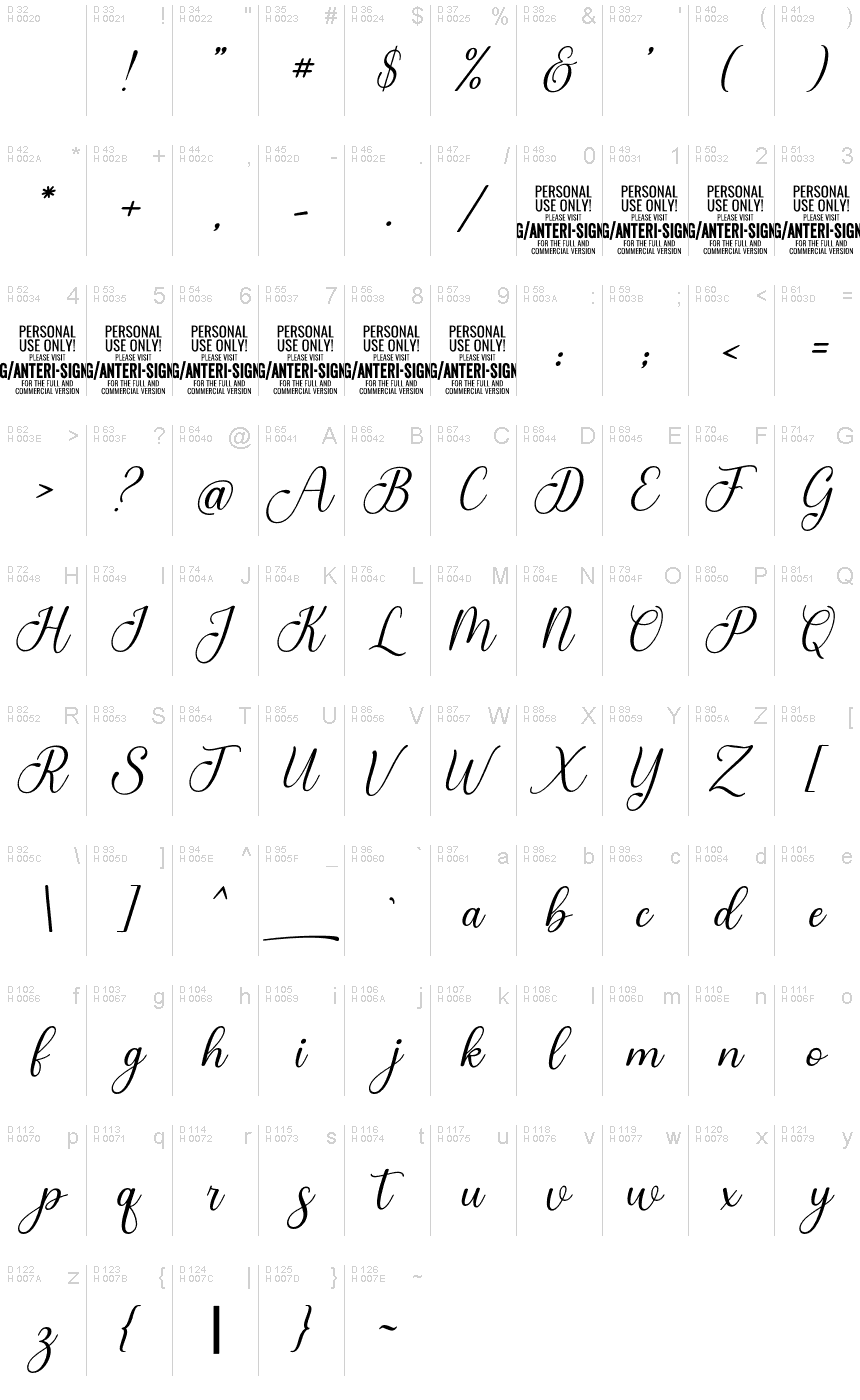
Anteri Signature PERSONAL USE Regular
Anteri Signature is a stunning calligraphy signature font designed by Mans Greback. With its semi-light weight, this font exudes elegance and sophistication, making it perfect for a variety of projects. Whether you're creating wedding invitations, branding materials, or social media graphics, Anteri Signature will add a touch of luxury to your designs. Its flowing cursive letters and unique flourishes make it stand out from other signature fonts. Use it to create personalized logos or add a touch of refinement to your website headers. Anteri Signature is the perfect choice for any project that requires an elegant touch.
Use underscore _ anywhere in a word to make a swash.
Example: Love_letter
Use multiple underscores to make longer underlines.
Use % at the end of any word to make a swash letter.
Example: Scrap__book%
Write # before or after any word to make a tail letter.
Example: #cuteness#